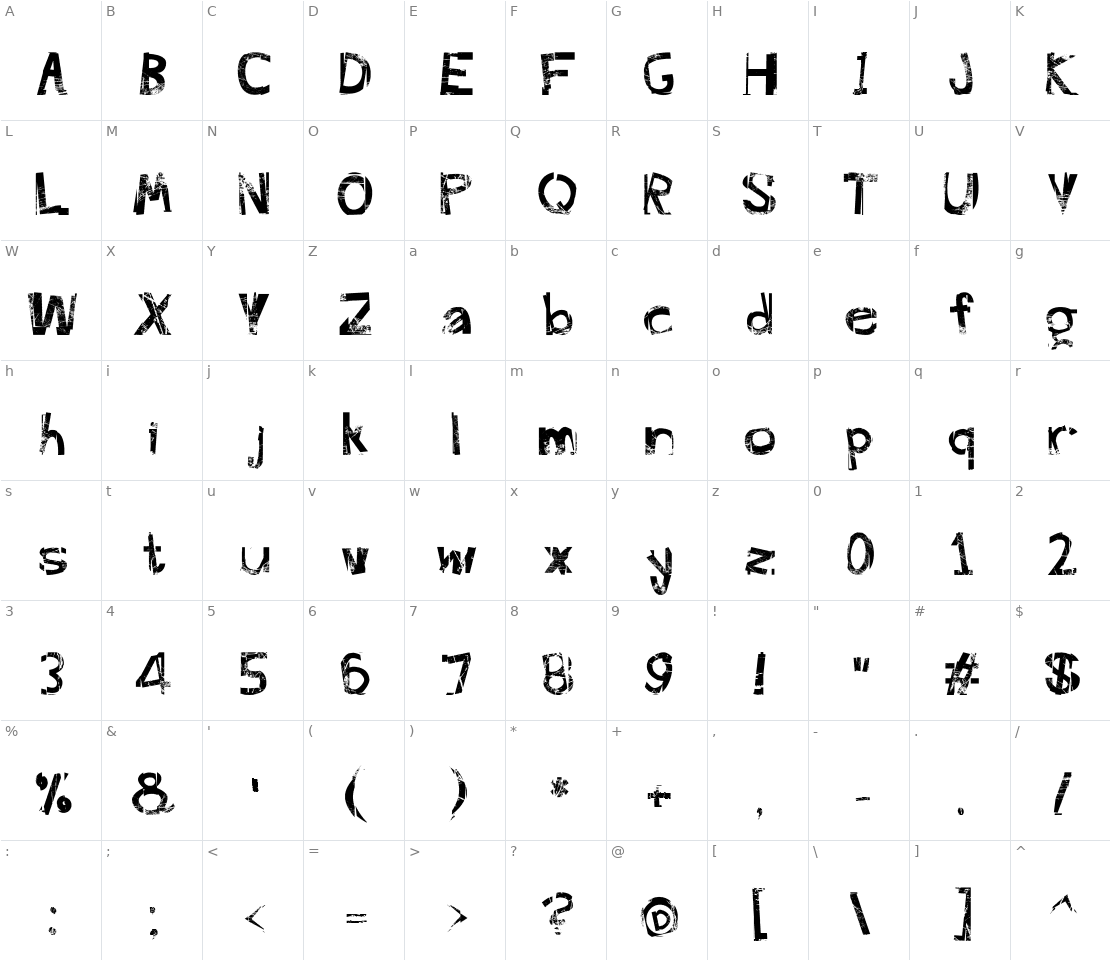
FreekTure
FreekTure is a gritty, textured display face from Veredgf with bold letterforms that look dragged through dirt and concrete. The heavy distressing gives every character a raw, urban quality, like wheat-pasted street posters left out in the rain. Built for headlines and poster work where you want type that feels rough, dark, and deliberately worn down.